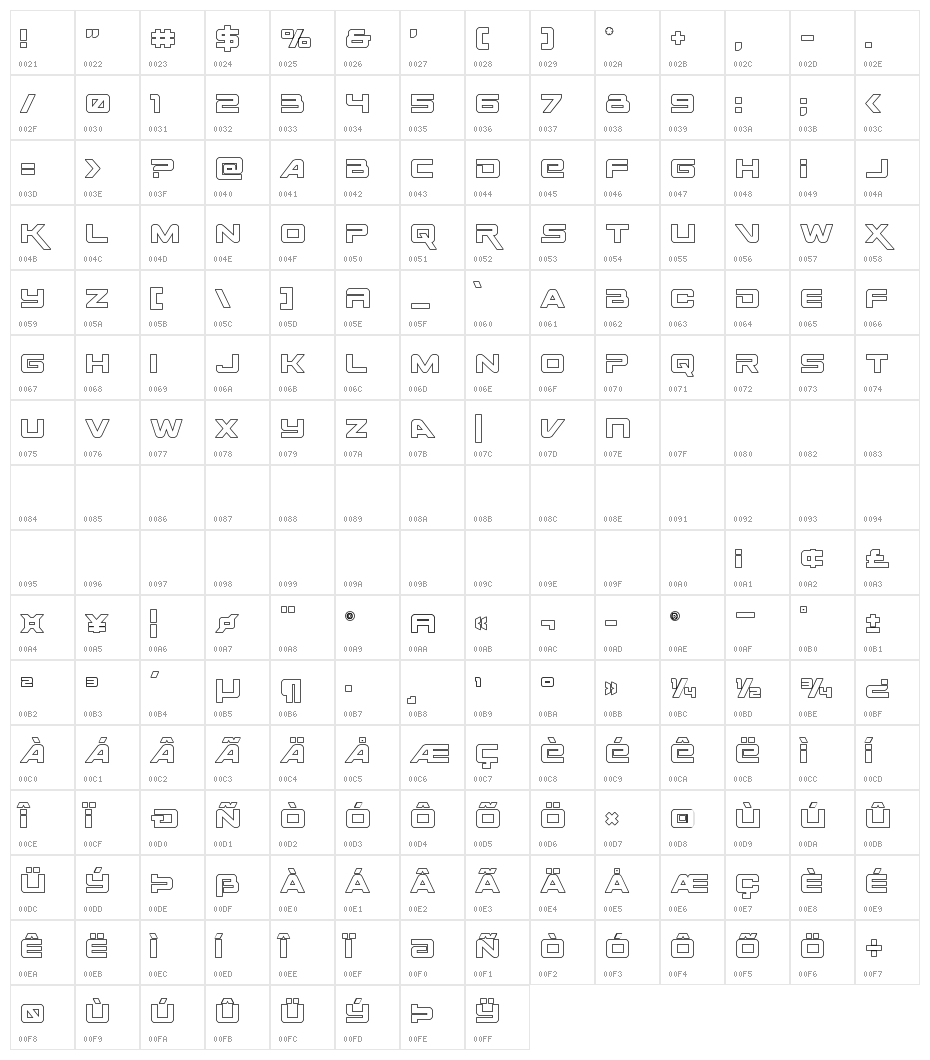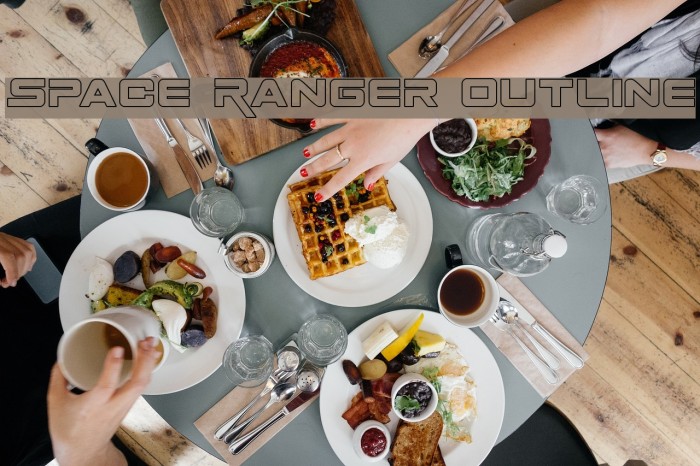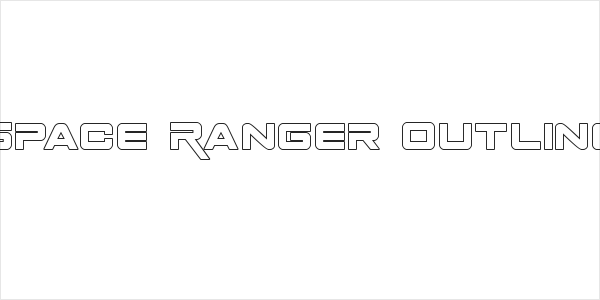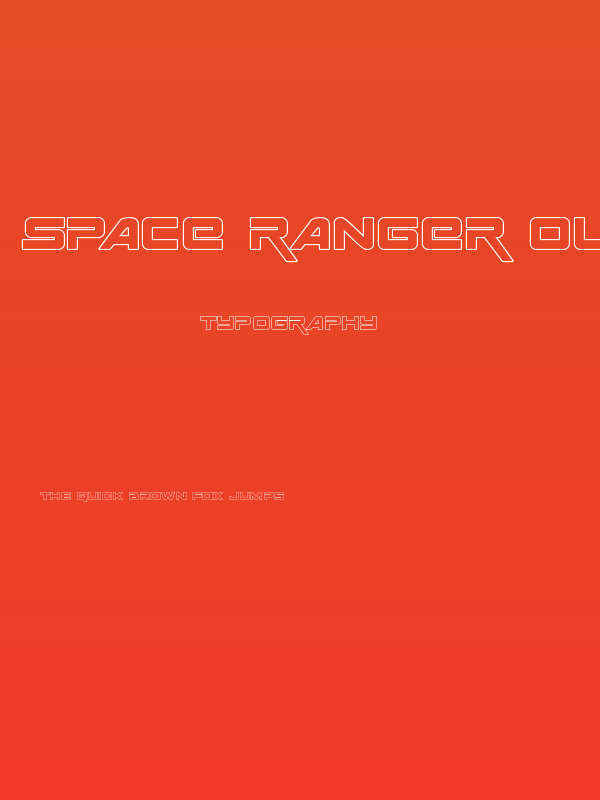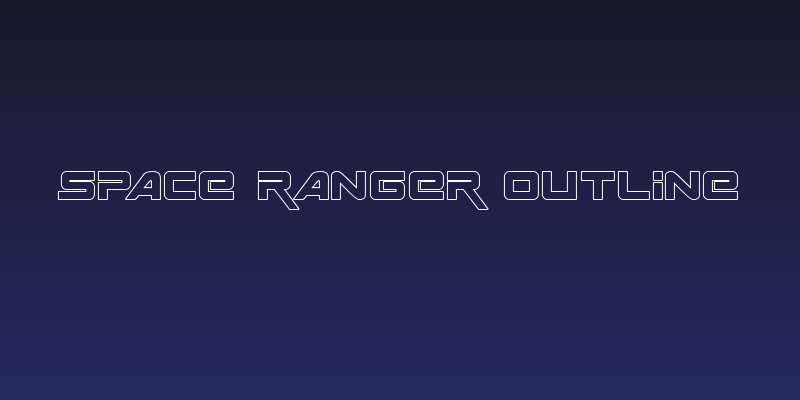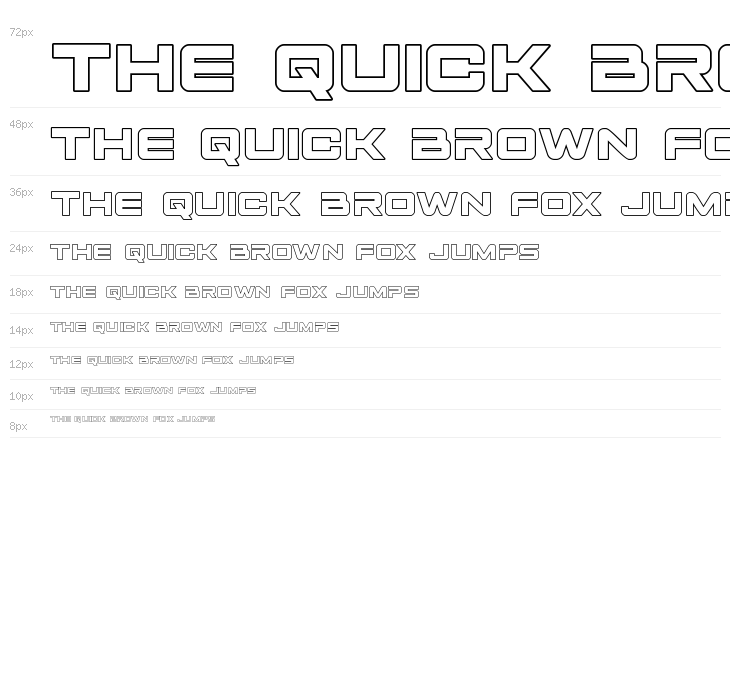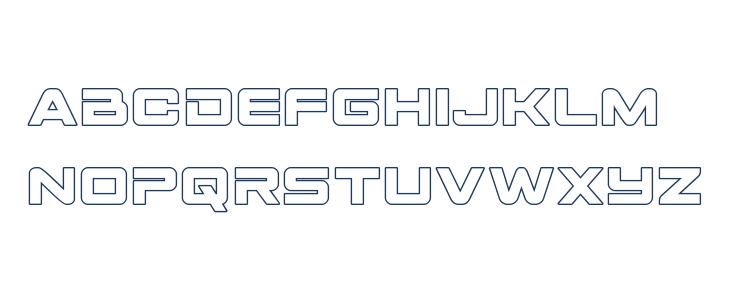
Space Ranger Outline Font
Space Ranger Outline Description
This font features a futuristic, geometric design with an outline style that gives it a distinct, space-age appearance. The characters are constructed with sharp angles and straight lines, creating a sense of precision and modernity. The uppercase and lowercase letters maintain a consistent height, contributing to a uniform look. The numerals and special characters are designed to match the angular theme, ensuring visual harmony across all glyphs. This font's outline nature allows for creative use of color and background, making it versatile for various design applications.
| Overall Style | Futuristic |
| Proposed Projects | Ideal for sci-fi themed projects, tech branding, video game titles, and futuristic posters. |